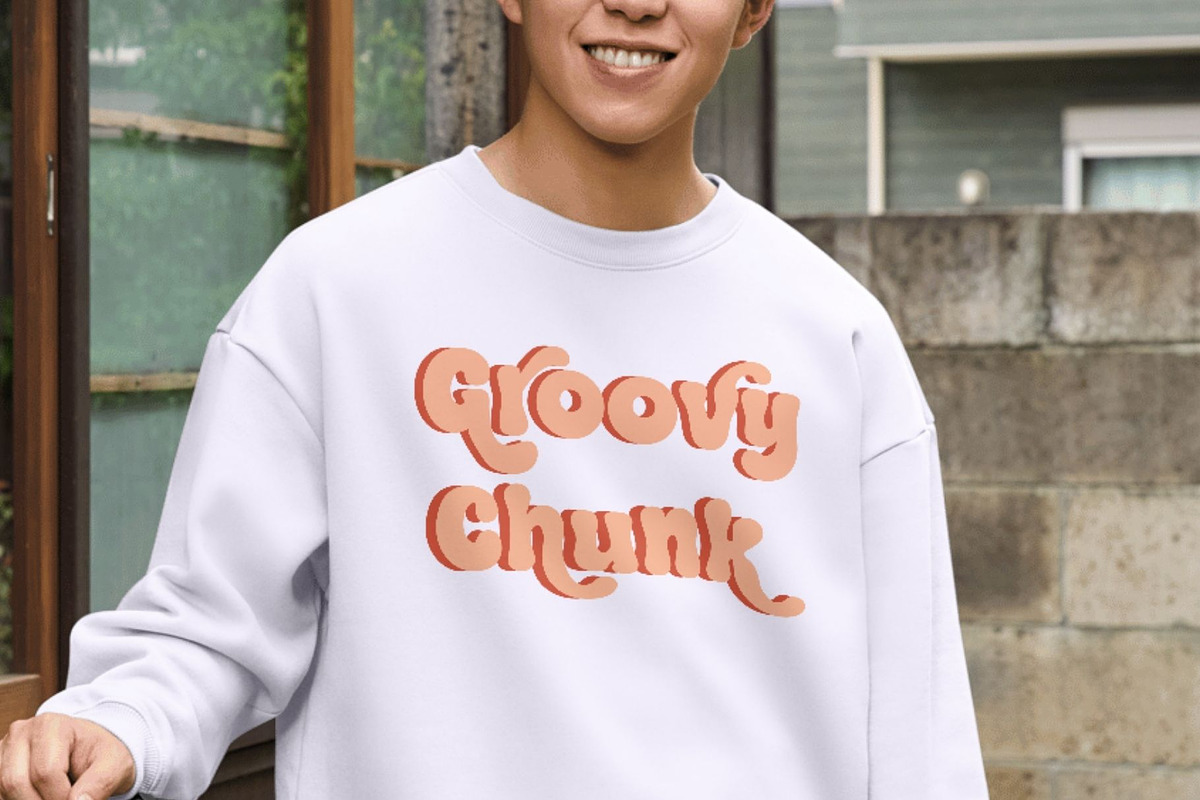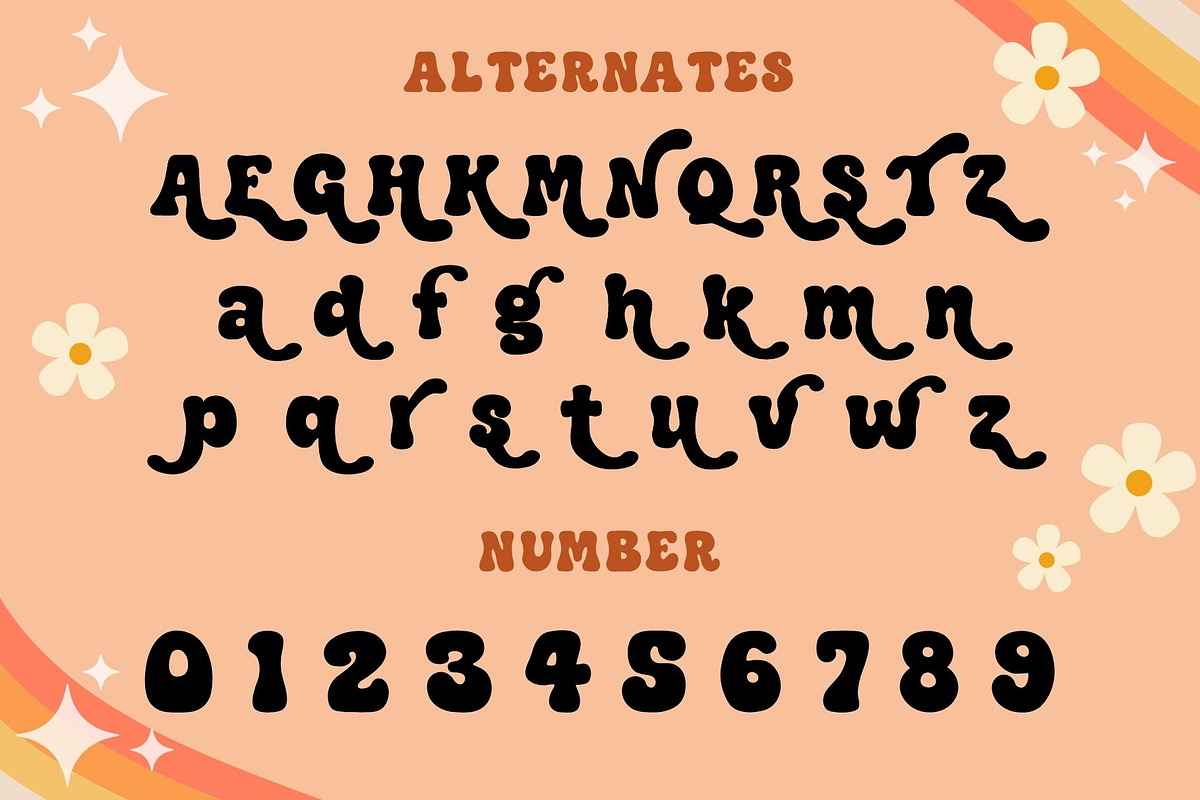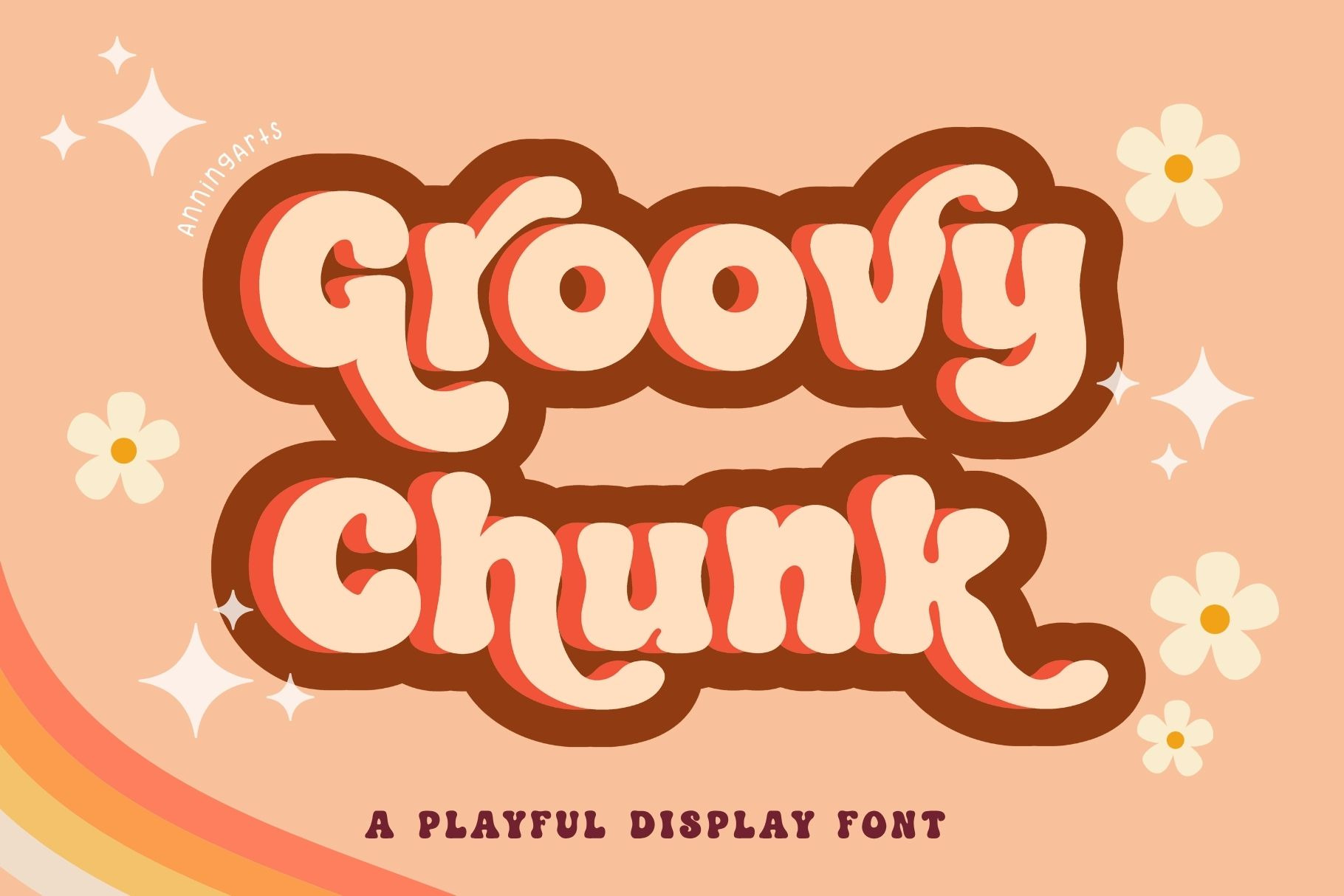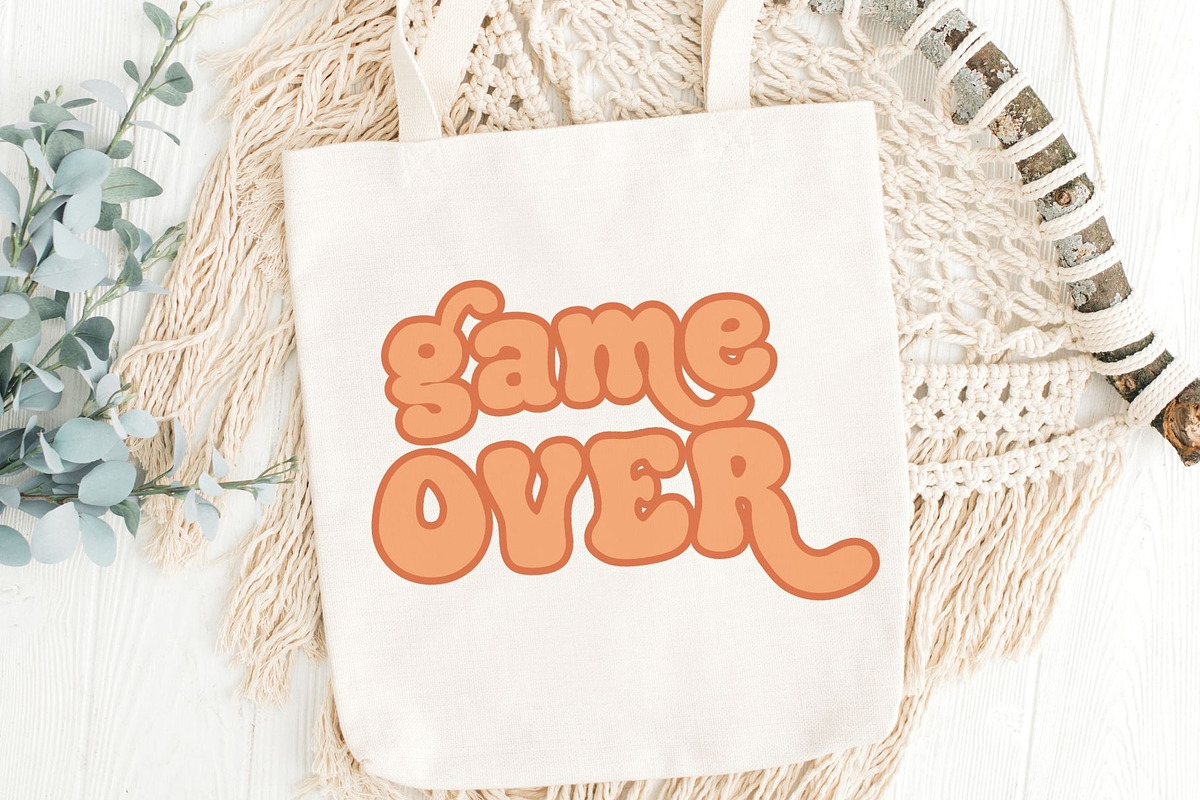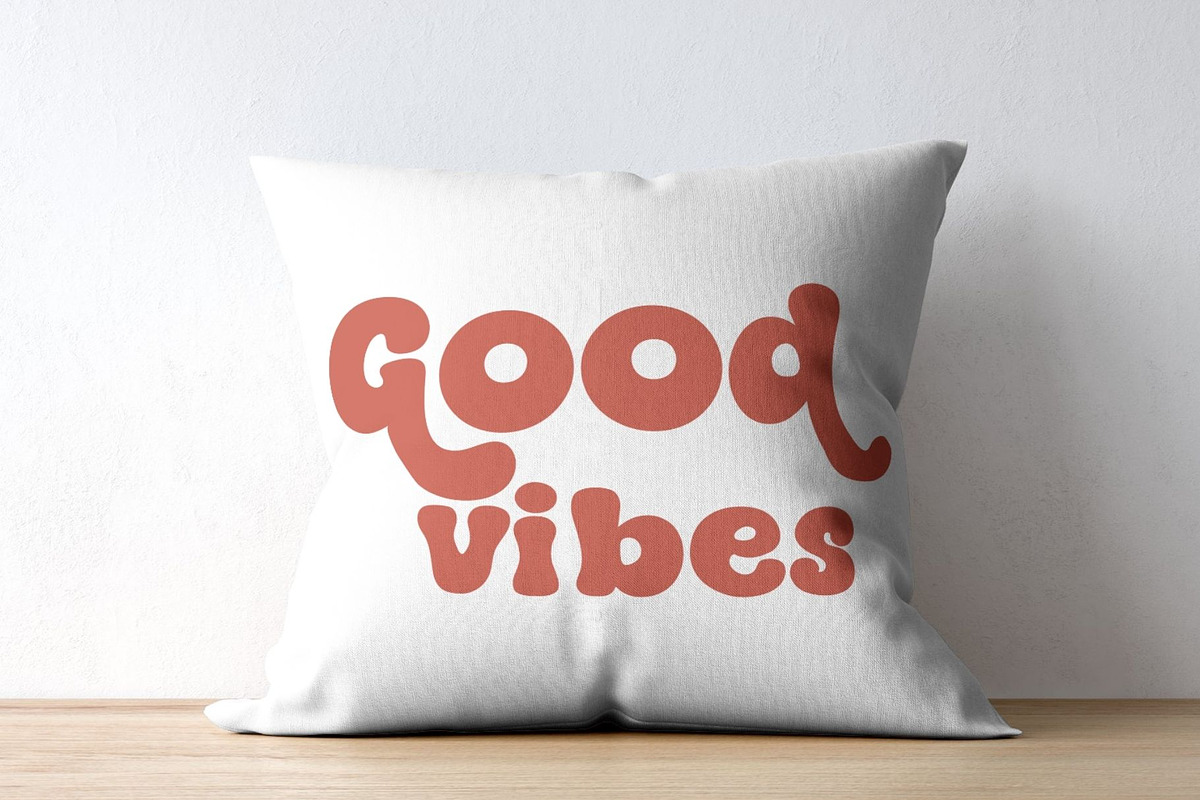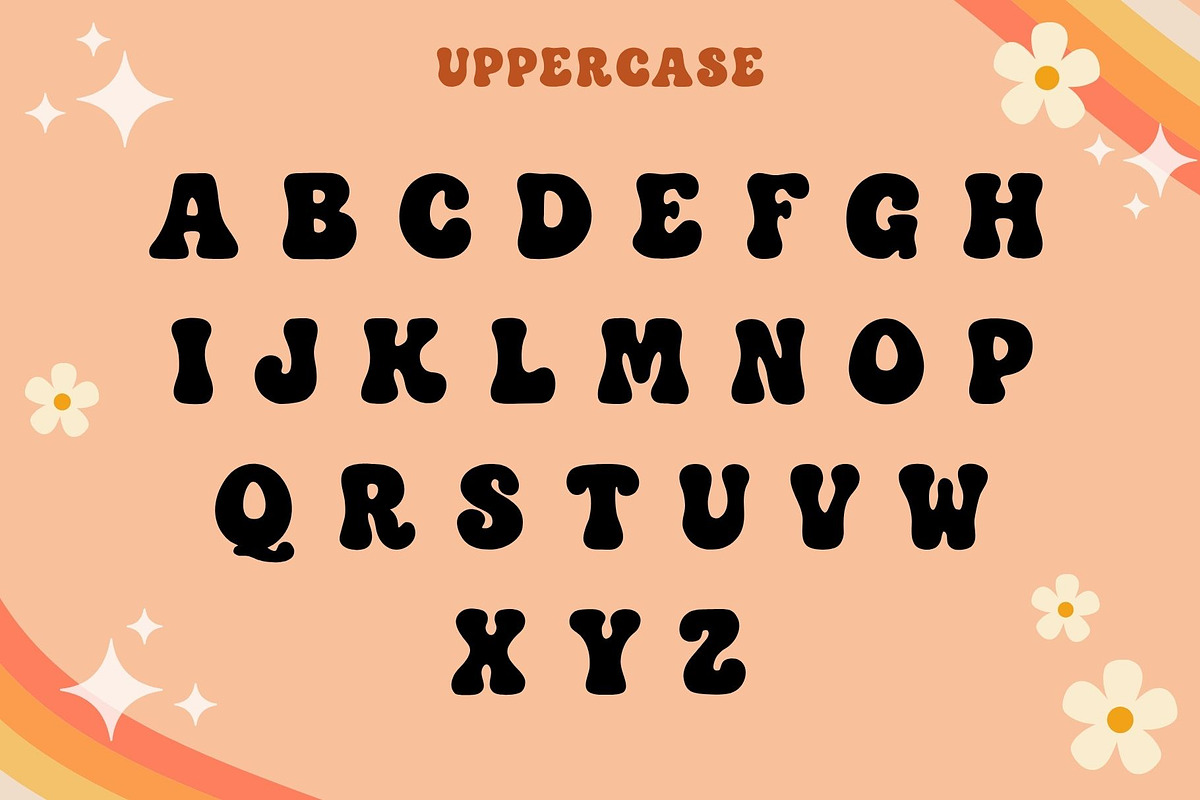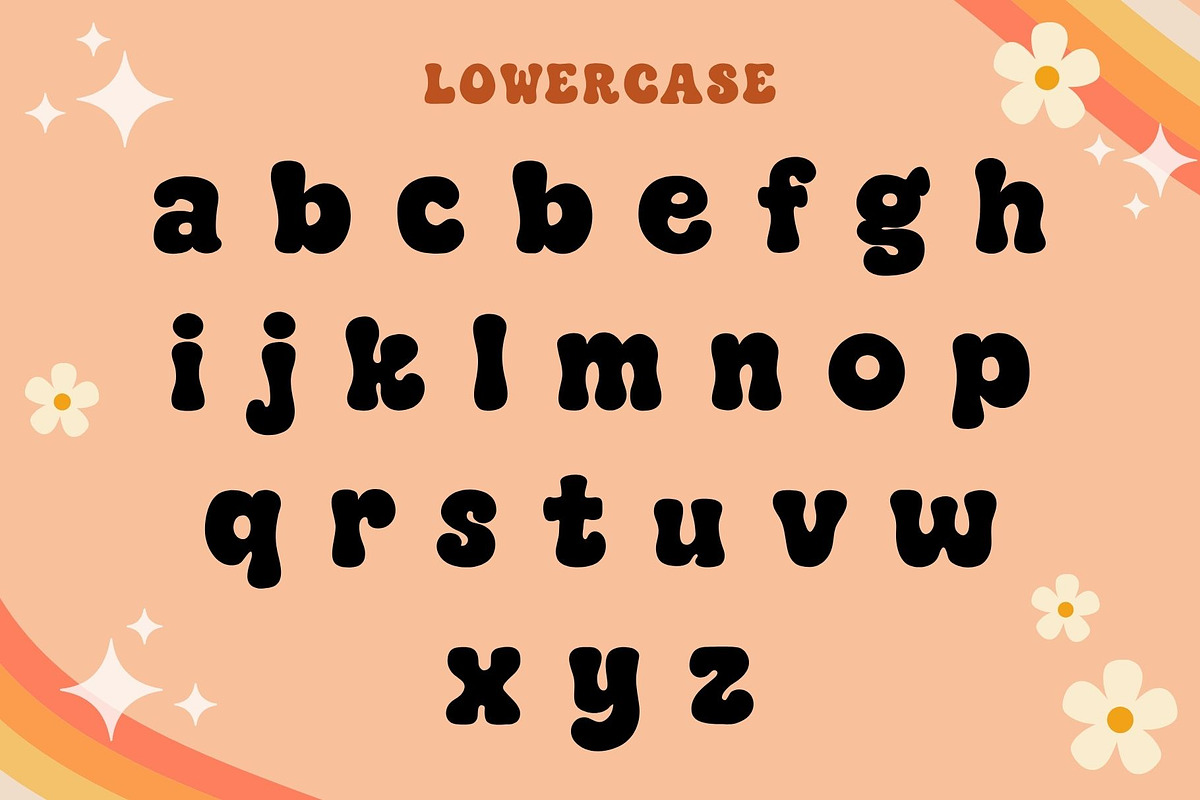
Groovy Chunk - Retro Display Font
Groovy Chunk is a bold and fun retro display font with chunky curves and playful alternates. Perfect for vintage-style crafts, Cricut projects, stickers, apparel, logos, and more.
Includes uppercase, lowercase, numbers, and alternates. Groovy Chunk gives your project that vibrant retro twist!